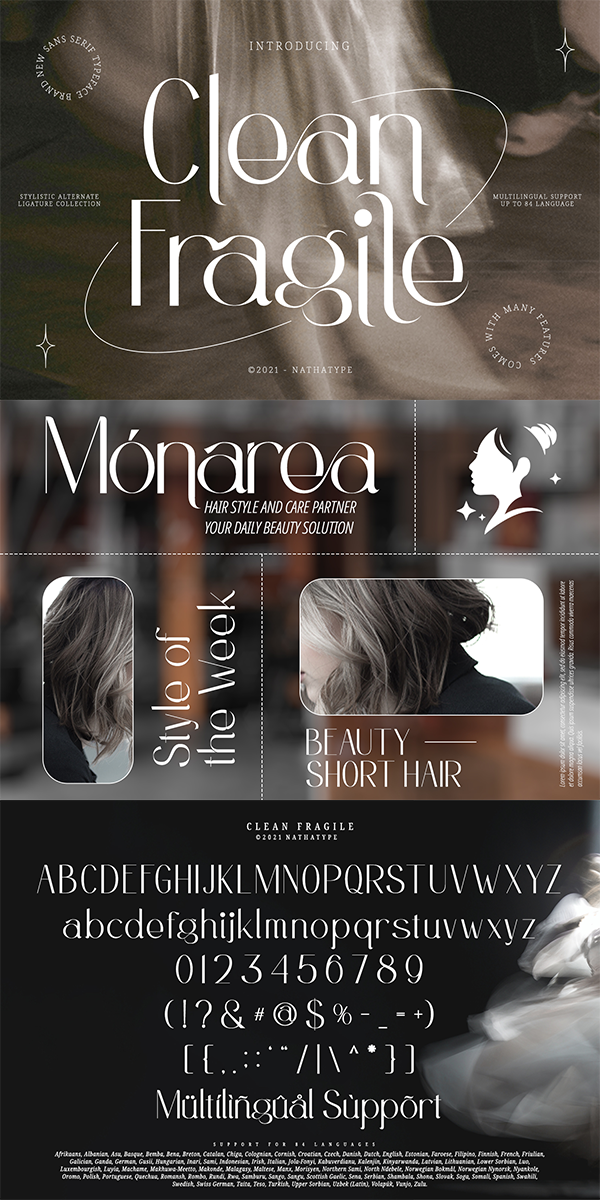
Clean Fragile Font
About Clean Fragile
Clean Fragile is a gorgeous sans serif font, designed with the modern vibe. This font is perfect for anything adventurous and direct. Every stroke, and curve was created to entice happiness and elegance. A real head-turner for your presentation, designs, website illustrations, and more.
The font includes Multilingual Supports to make your branding reach a global audience. Inspire your audience, clients, or guests with this beautiful, statement font.